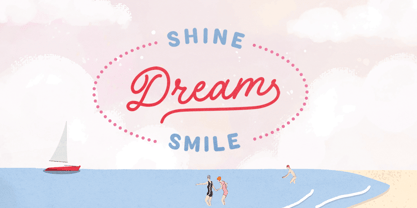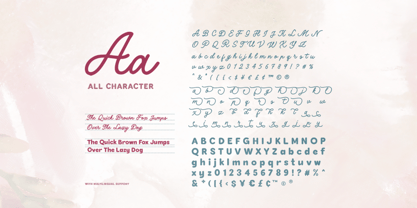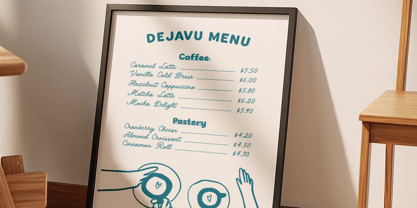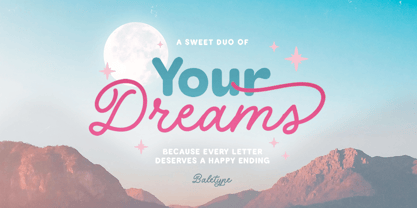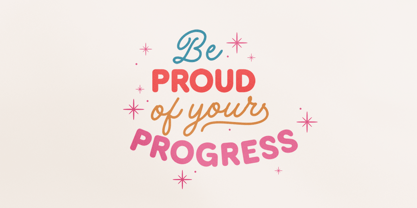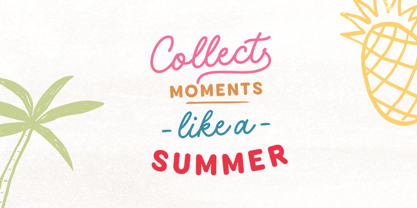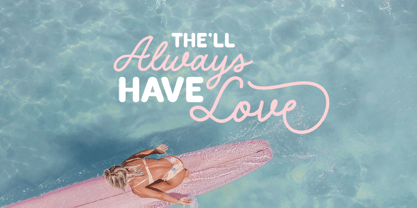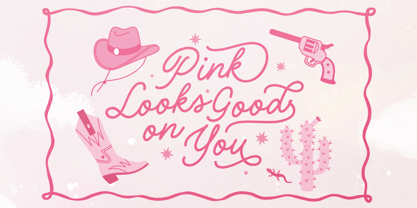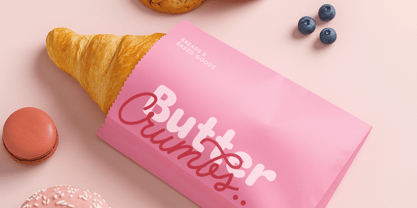
Your Dreams
por Bale Type
La familia tipográfica Your Dreams fue diseñada por Dzikrul Aulia y publicada por Bale Type. Your Dreams contiene 2 estilos y opciones de paquete familiar. Más información sobre esta familia
Your Dreams is a soft font duo that have bold rounded sans and curly monoline script. With cute and retro looks, you can use this font for any purposes such as book cover, logotype, quotes, branding, and wedding invitations card. The script contains alternates that will make your project looks stunning. You can add the end swash by activating ligature then type equal + number (1-3), for example "Dream=3'. This font duo also support multi language.